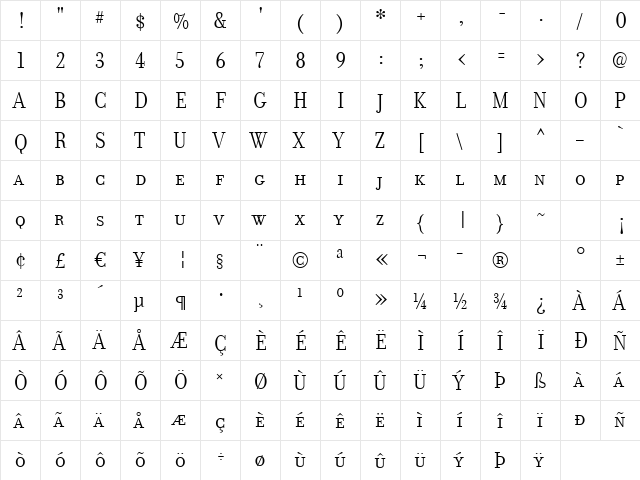
Donatora Display SC Regular Font Preview
Donatora Display SC Regular
Donatora Display SC Regular Font Details
Design Context for Donatora Display SC Typeface
Donatora Display SC is built around its visual character rather than neutral utility — its distinctive forms are designed to make an impression at display sizes.
Font Pairing: Pair with a clean neutral sans-serif for body copy to let Donatora Display SC's character lead without overwhelming the composition.
Pro Tip: Use Donatora Display SC exclusively at display sizes — it was designed to be seen, not read at length. Let a neutral companion handle body copy.